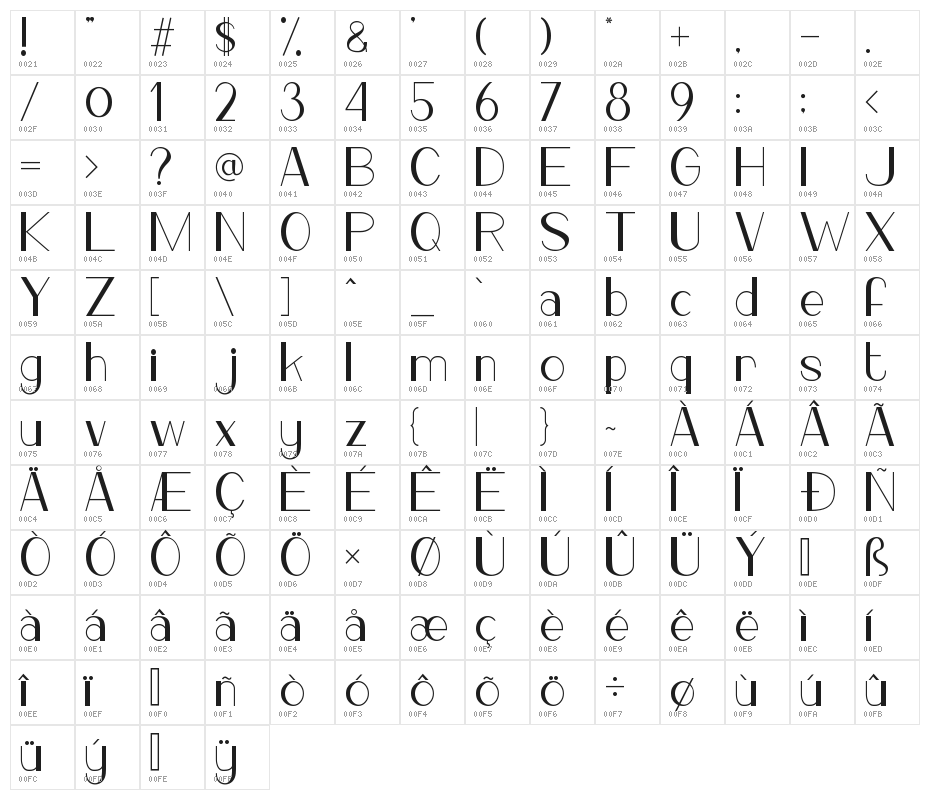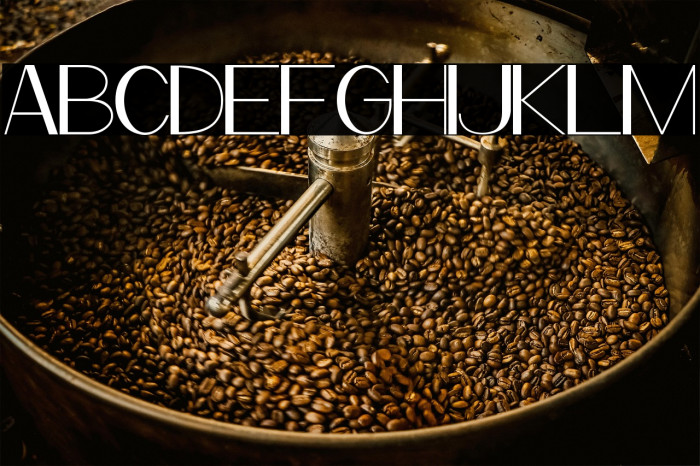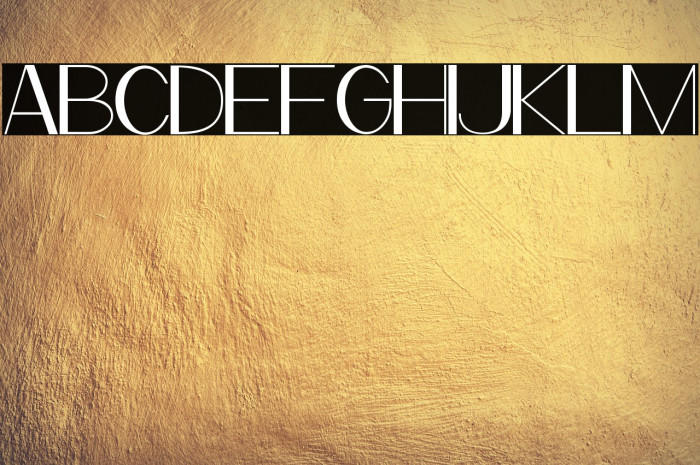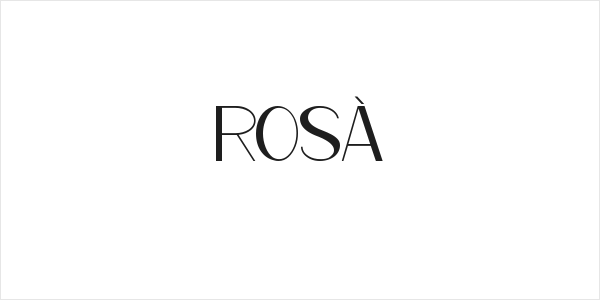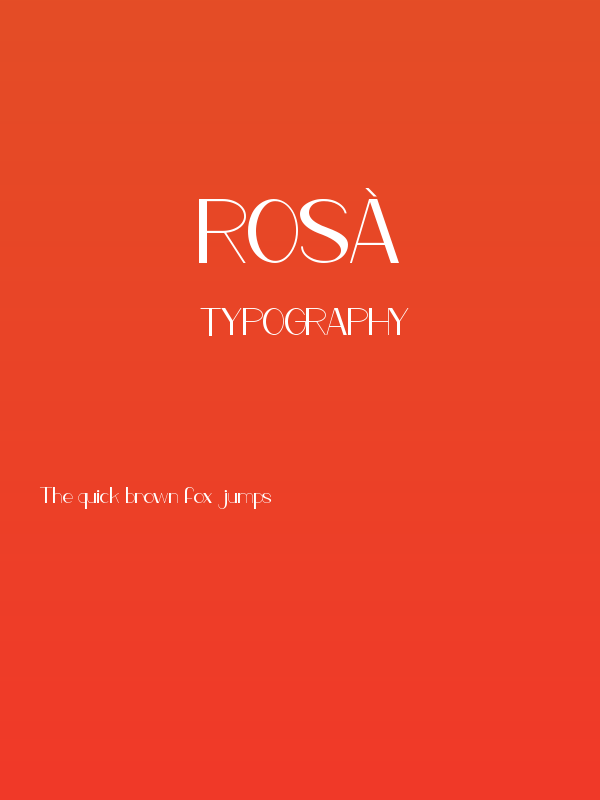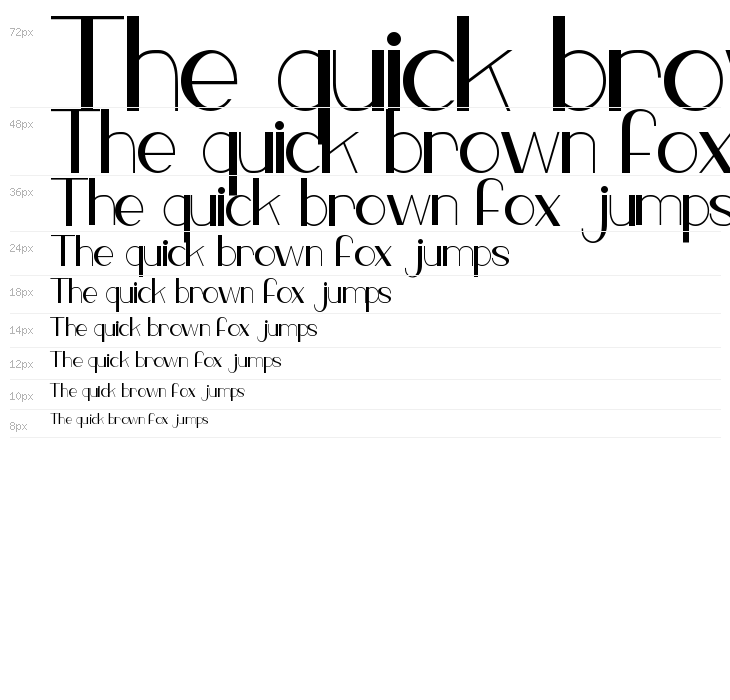
ROSÀ Font
ROSÀ Description
This font features a modern and sleek design with a high contrast between thick and thin strokes. The uppercase letters are characterized by their geometric shapes and clean lines, while the lowercase letters maintain a similar aesthetic with a slightly more playful touch. The numerals are distinct and easy to read, complementing the overall style. Special characters are designed with the same attention to detail, ensuring consistency across all glyphs. This font's unique style makes it suitable for a variety of creative projects.
| Use Case | Headlines, Logos, Branding |
| Proposed Projects | Ideal for branding, advertising, and editorial design projects that require a contemporary and stylish look. |